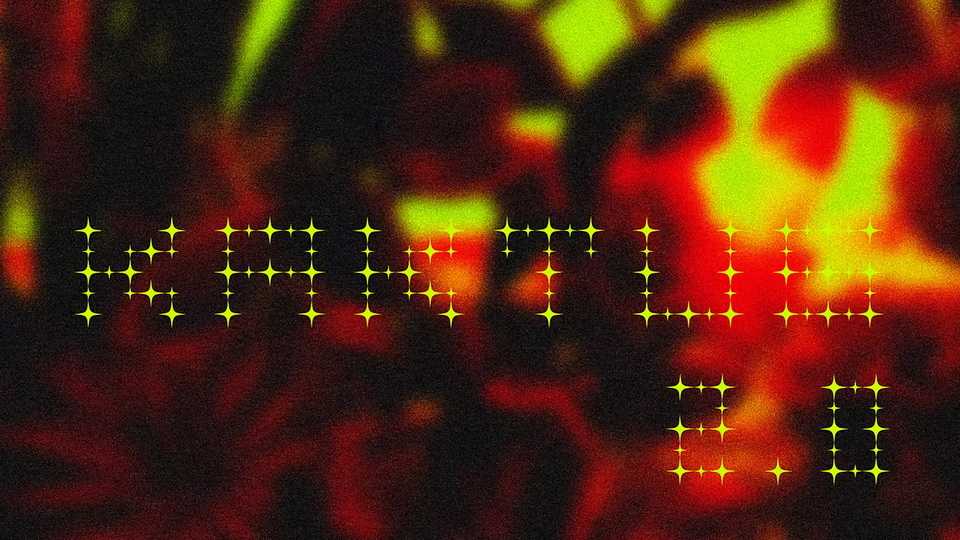
Download Kaktus 2.0 typeface, a blooming of Kaktus font in three different forms: one that is a revisitation of the first version but with a new touch, another that wants to recall the rare but stunning flowers that enrich the cactus and the last one that it’s the minimal version of the other two.